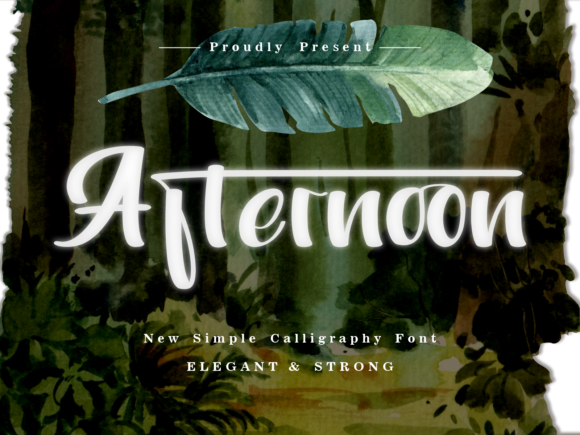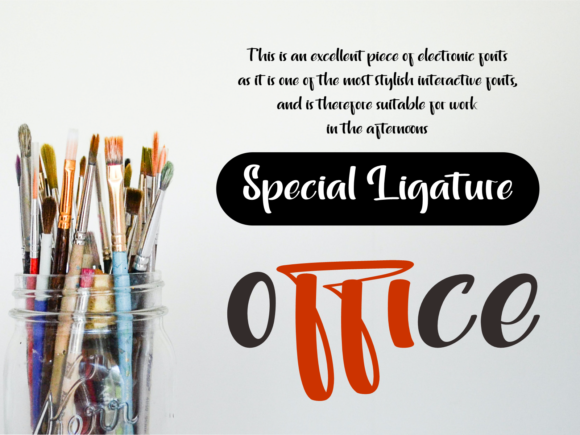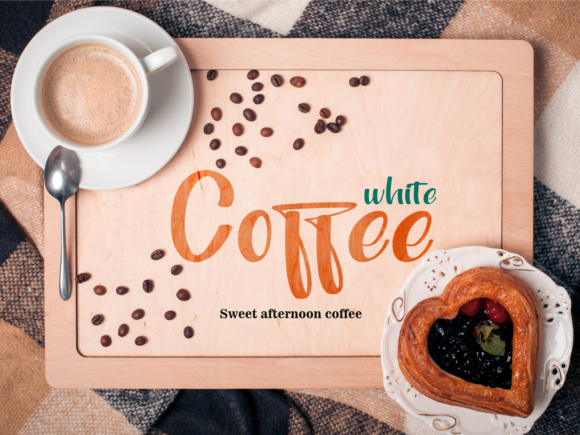
About Afternoon Font
Afternoon is a simple and modern script font that brings a touch of elegance and style to your designs. With its clean and sleek letterforms, this font is perfect for various creative projects, from social media graphics to DIY crafts.
One of the key features of Afternoon is its simplicity. The clean lines and minimalistic design of the letterforms give the font a modern and contemporary look. This simplicity allows the font to be highly versatile and adaptable to different design contexts.
Whether you’re creating social media posts, designing logos, or working on DIY projects, Afternoon can elevate your creative ideas and transform them into true works of art. The fluid strokes and balanced letterforms of the font add a sense of grace and sophistication to your designs.
The versatility of Afternoon makes it suitable for a wide range of applications. It can be used for branding and logo design, adding a touch of professionalism and elegance to your business identity. It also works well for social media graphics, where its modern and clean appearance helps your content stand out.
In DIY projects, Afternoon can be used to create beautiful hand-lettered designs, such as invitations, greeting cards, and personalized gifts. Its simplicity and legibility make it easy to work with, even for beginners in calligraphy and lettering.
Overall, Afternoon is a simple and modern script font that brings a touch of elegance and style to your creative projects. Whether you’re designing for social media or working on DIY crafts, this font will enhance your ideas and turn them into true works of art. Its versatility and clean design make it a reliable choice for various design contexts.